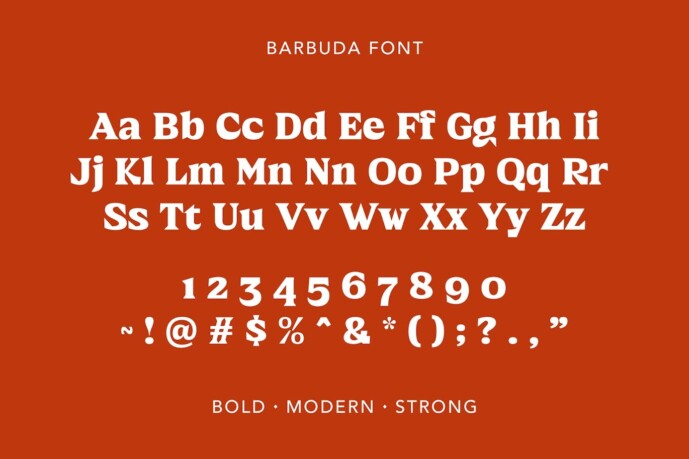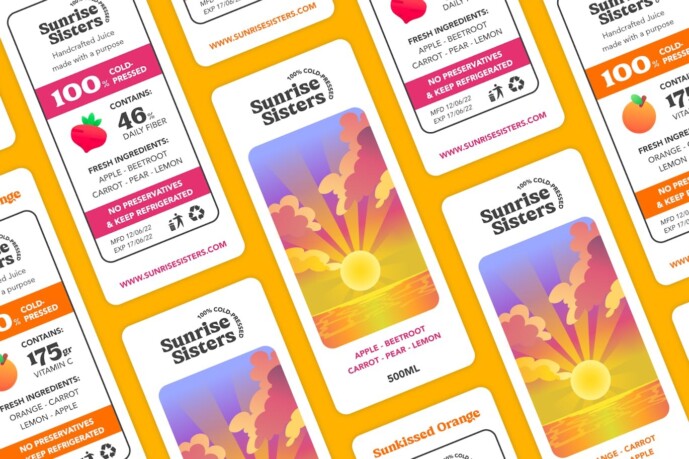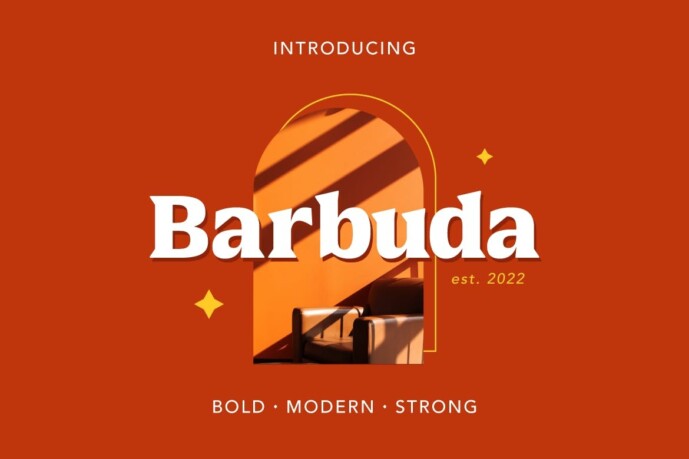
Barbuda Font
Designer: BekeenCo
Barbuda Font is a bold serif font with curves and sharp edges. The Barbuda combines chunky retro typography with a modern aesthetic. It’s perfect for branding, retro posters, labels, apparel, and more.